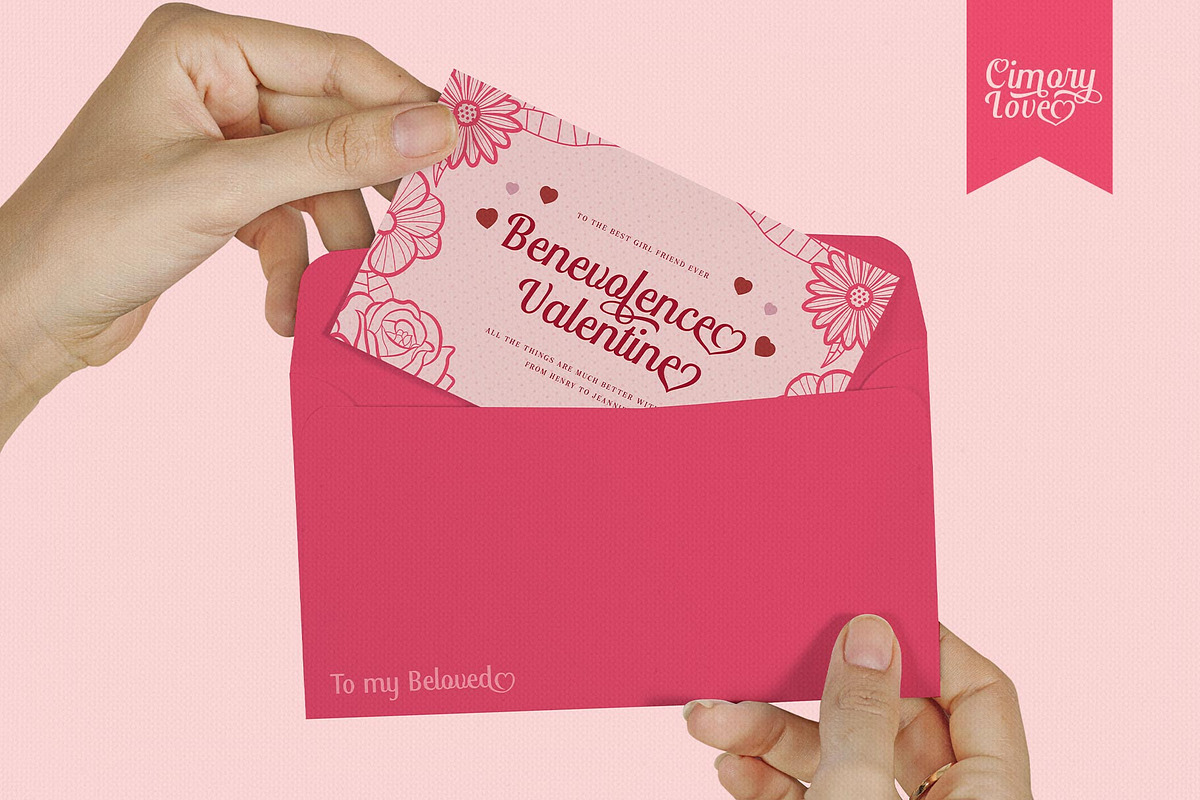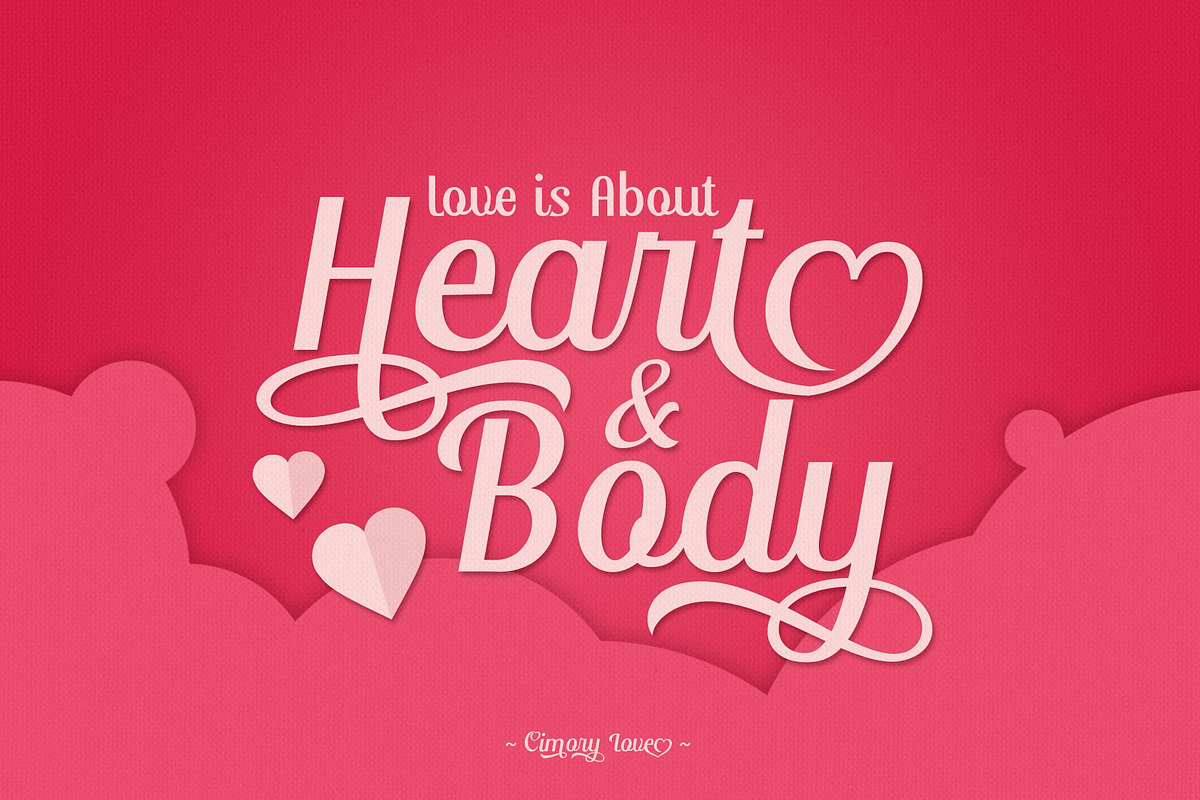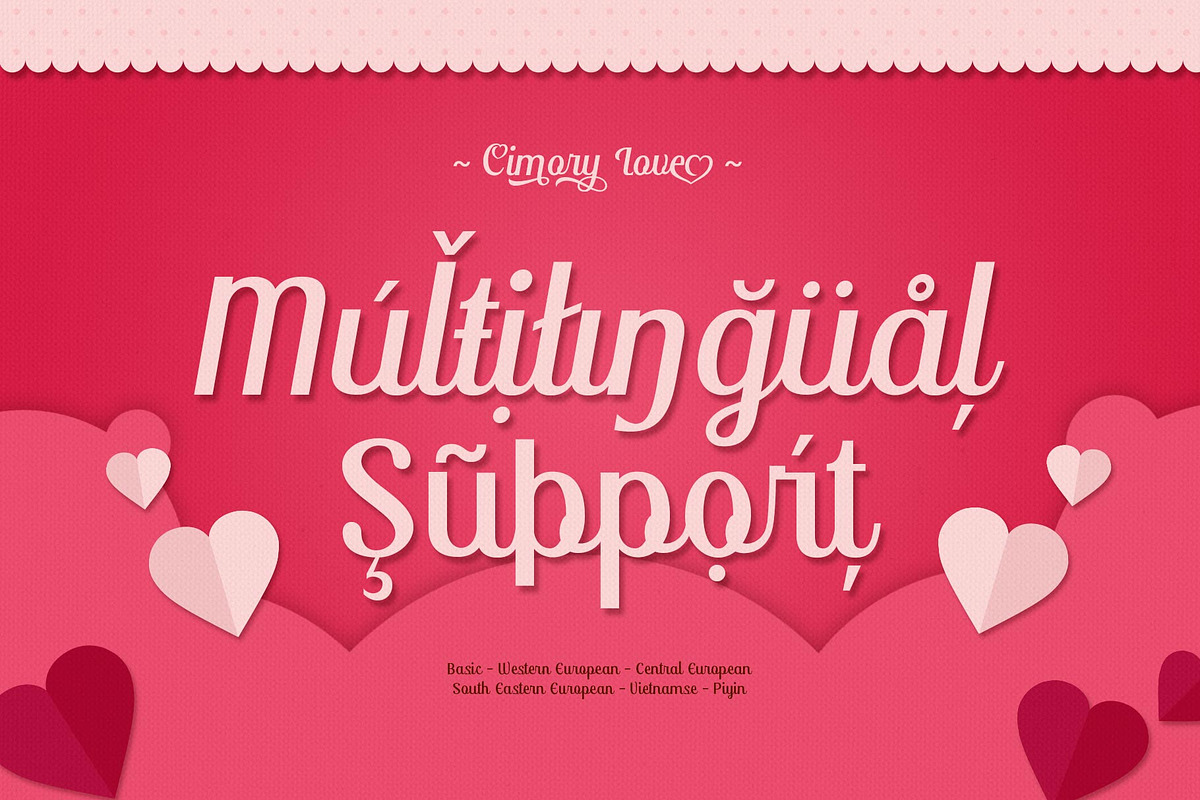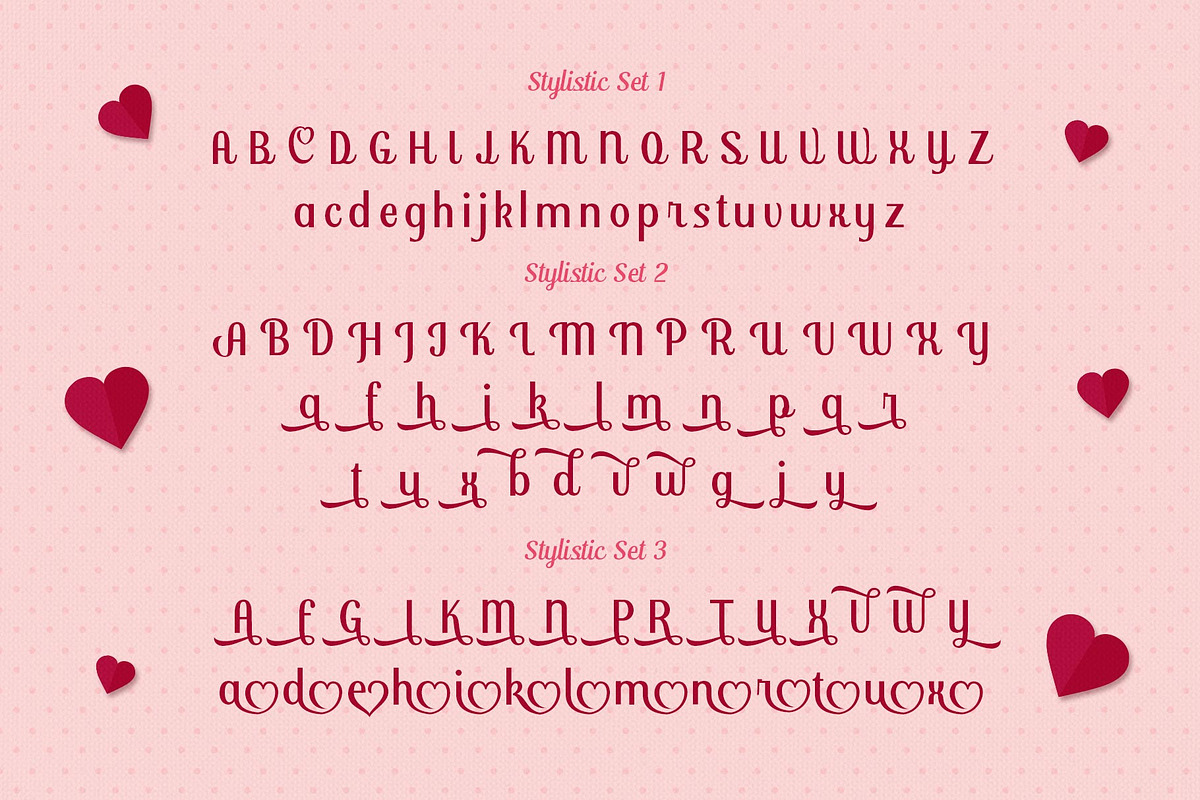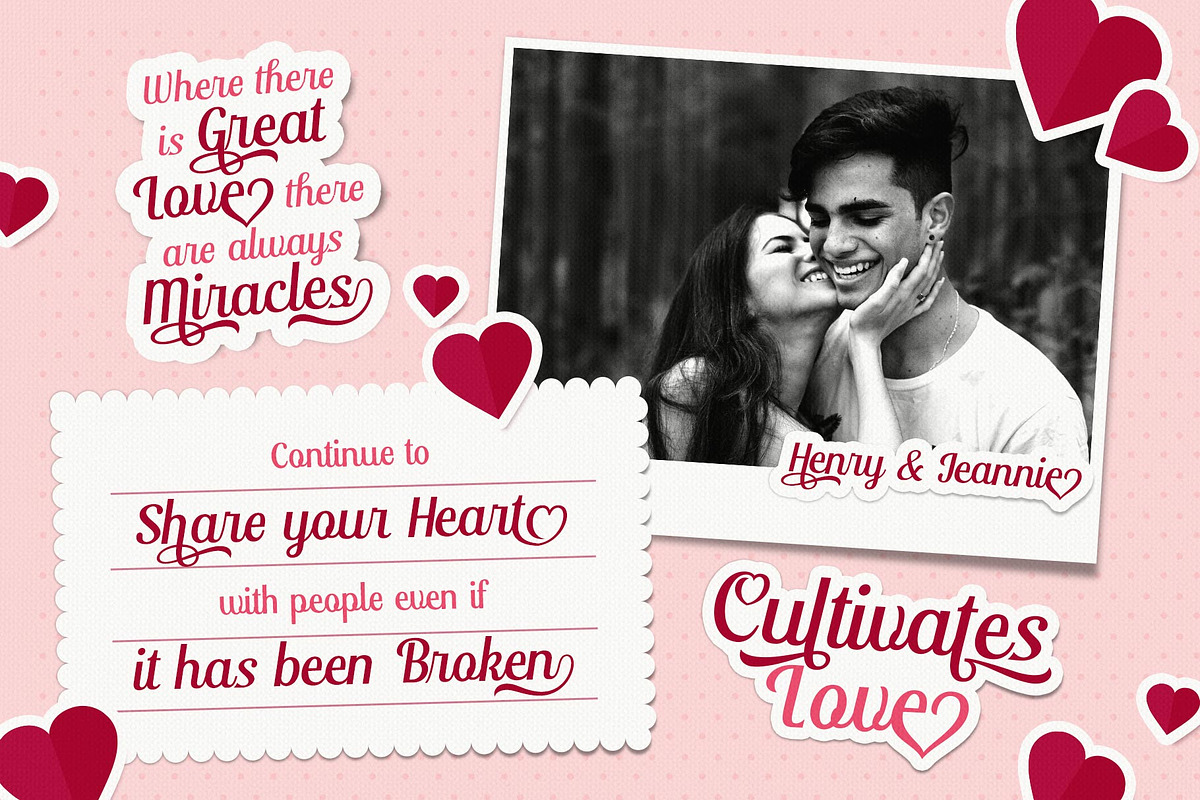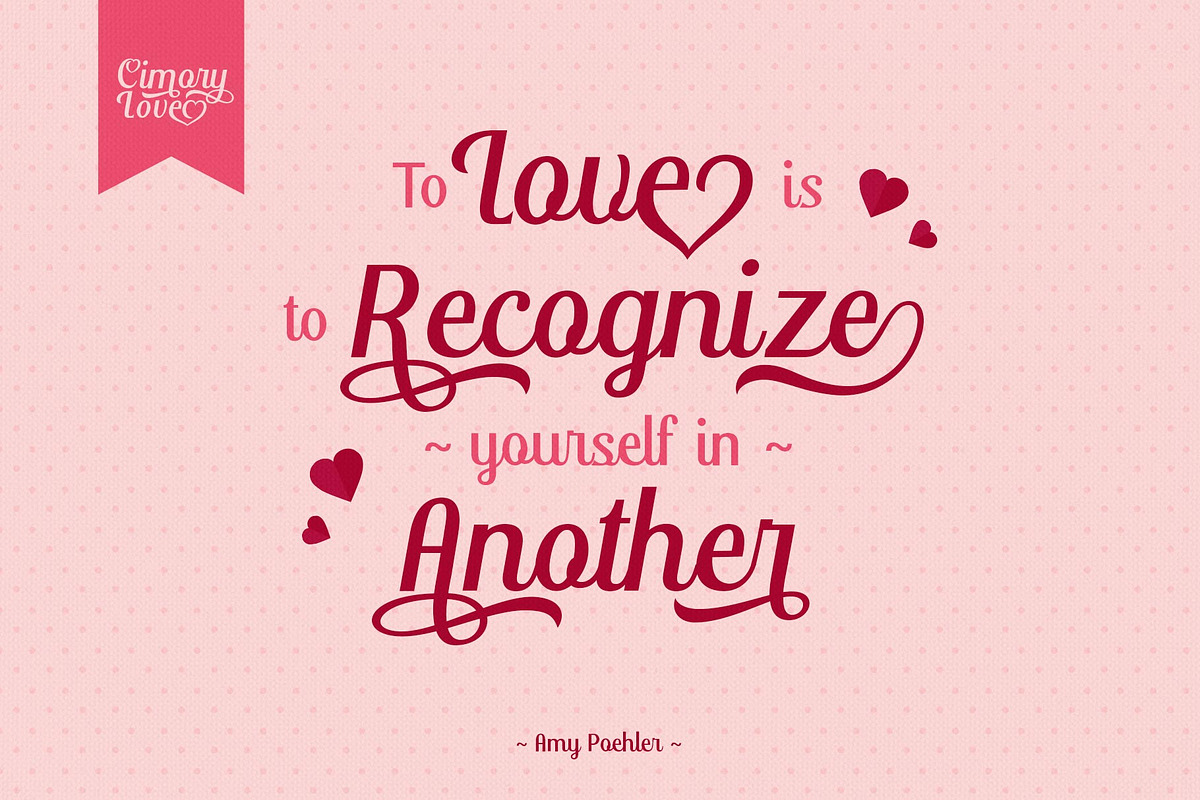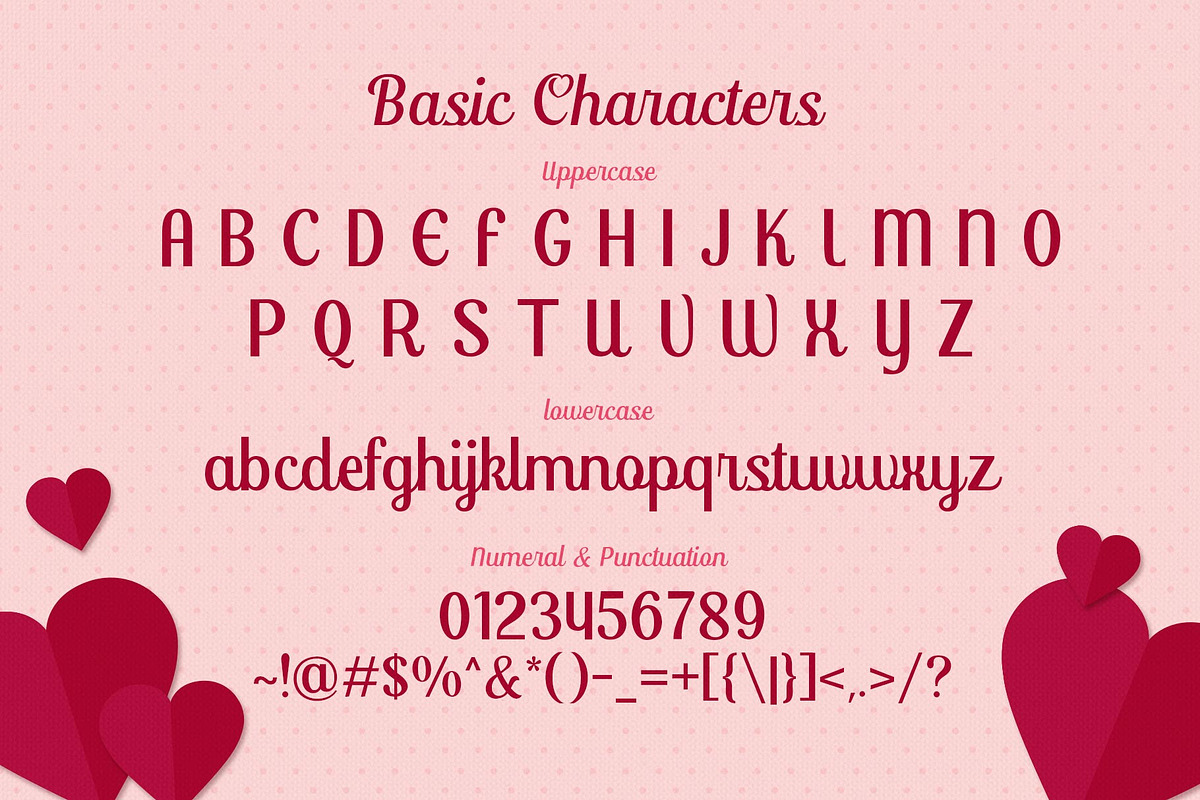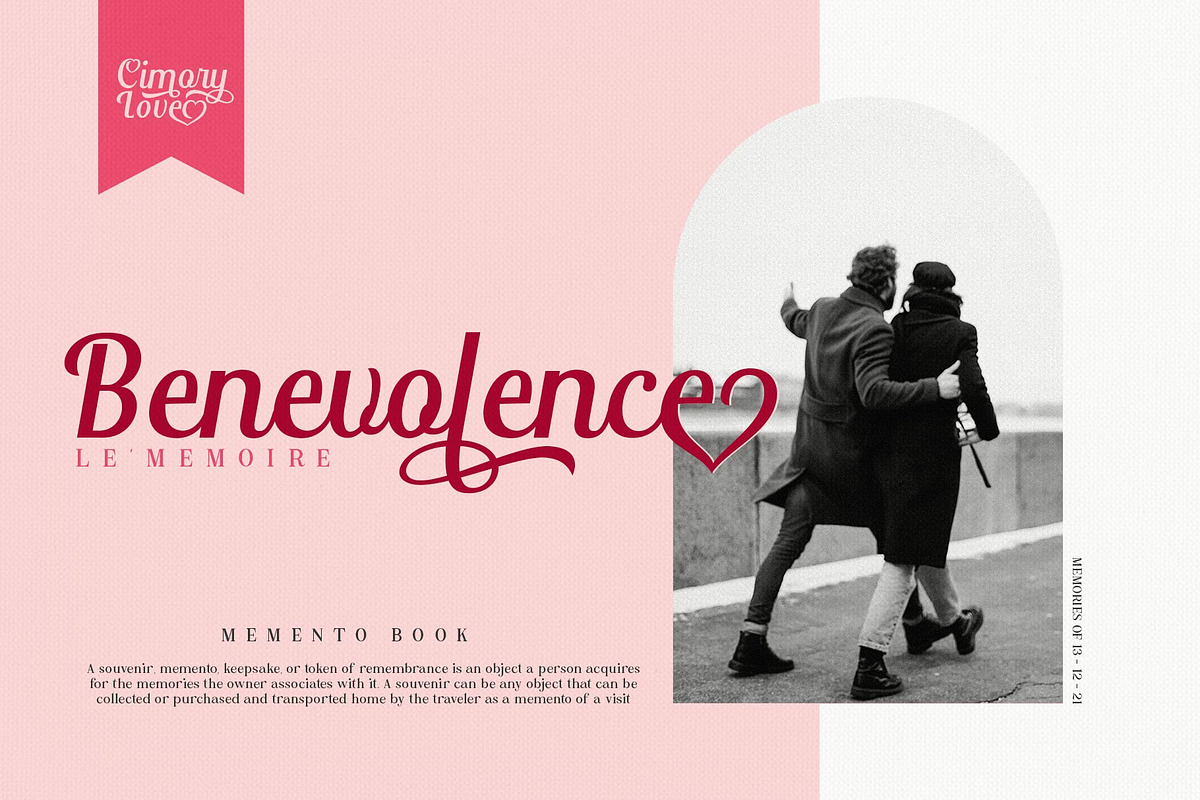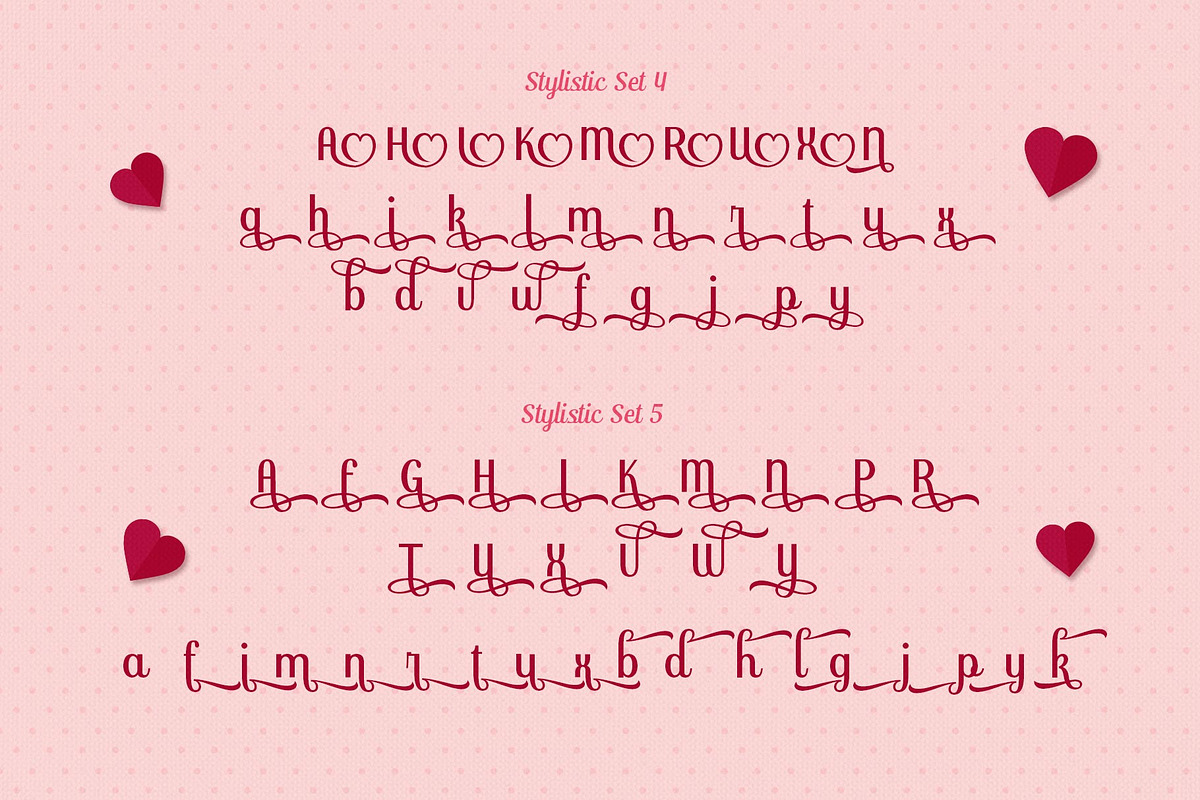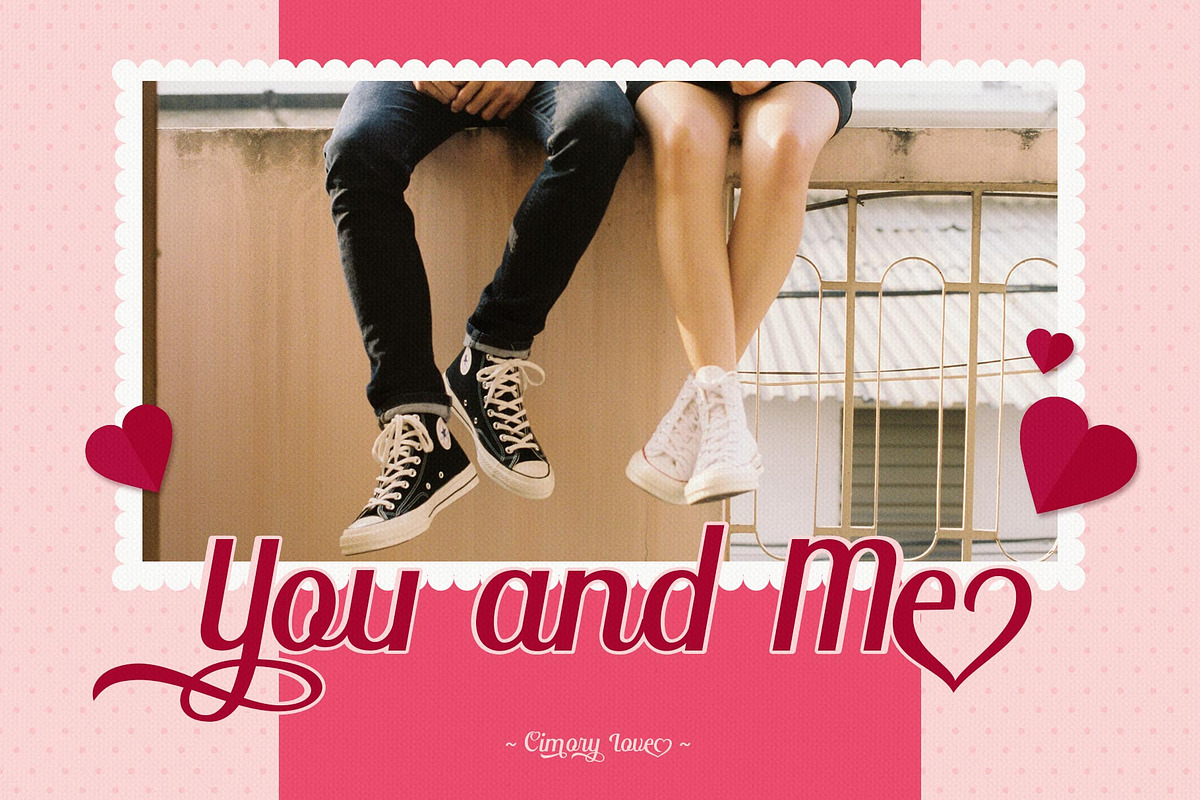
Cimory Love Typeface
Introducing Cimory Love Typeface
💕The Cimory Love Typeface 💕is valentines day inspired font made for romance theme. The Cimory Love font adheres to a simple and elegant modern script style, besides that this font has a unique swash in the shape of a heart that can be used for unique love designs.
Very suitable for use in making greeting card designs, Instagram posts, logo designs, wedding texts, romance quotes and so on, the first is about love.